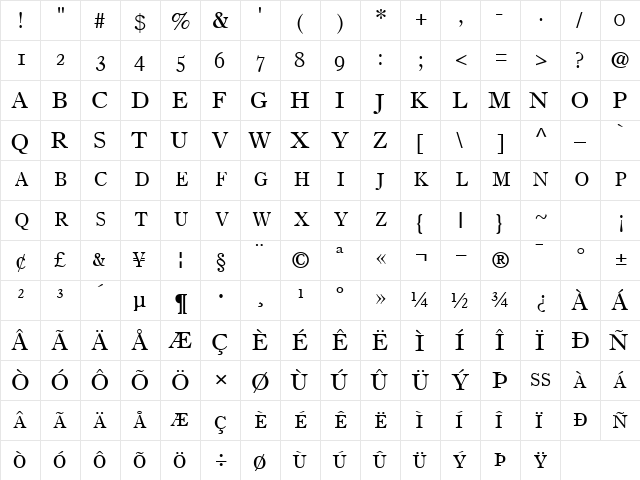
PartitionOSSCapsSSK Regular
Design Context for PartitionOSSCapsSSK Typeface
PartitionOSSCapsSSK takes a measured approach to typography — its balanced proportions and neutral character make it a reliable workhorse for both digital and print work.